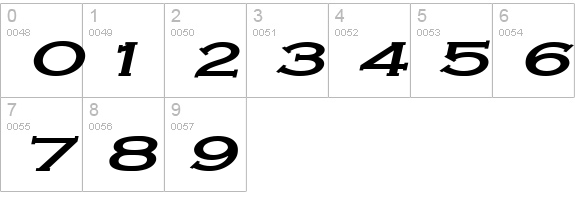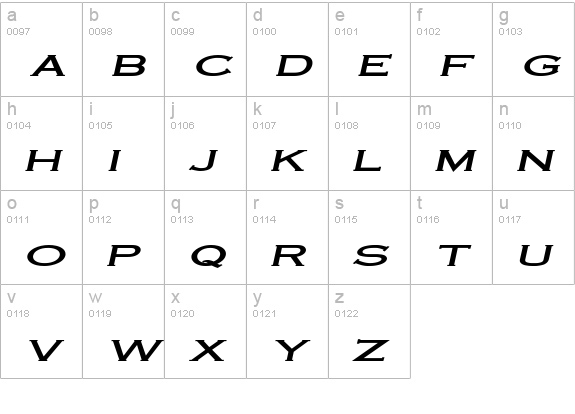
Cobalt Extended Bold Italic Font Details
Cobalt Extended Bold Italic is a strong, high-contrast, extended-width, italic variant in the Cobalt typeface family \xE2\x80\x94 well suited to headlines, attention-grabbing titles, and strong calls-to-action.
The Cobalt Extended Bold Italic font exudes a sense of modern sophistication with its sleek and stylish design. This font is perfect for making a bold statement in your designs, whether for branding, packaging, posters, or digital projects. The strong and sharp lines of this typeface give it a commanding presence, making it stand out from the crowd. What's even better is that Cobalt Extended Bold Italic font is available for free download at FontsMarket.com. This means you can enhance your projects with this eye-catching font without any cost. Don't miss out on the opportunity to elevate your designs with this versatile and striking typeface. Download Cobalt Extended Bold Italic today and let your creativity shine!